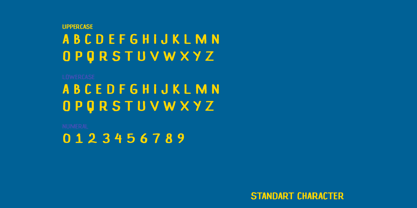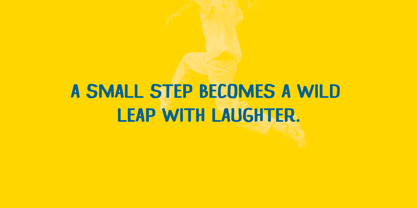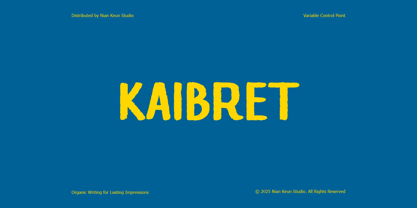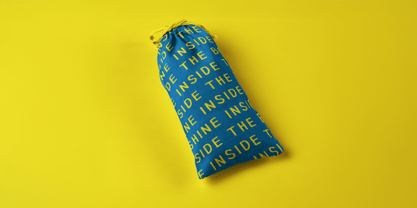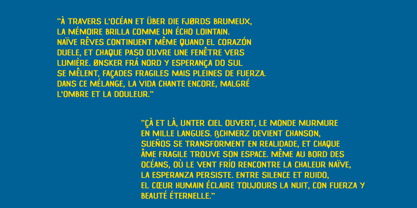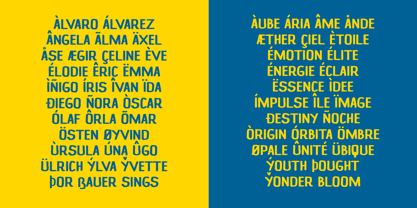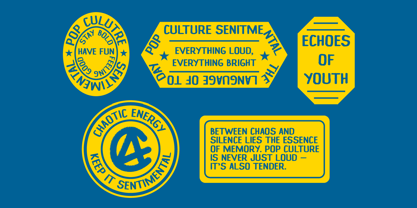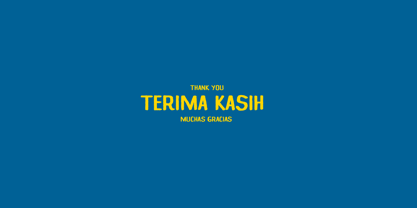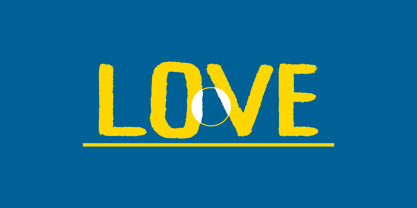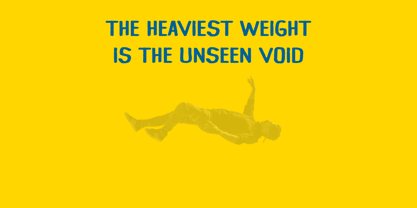
Kaibret
by Nian Keun Studio
The Kaibret Font Family was designed by Mugi Raharjo and published by Nian Keun Studio. Kaibret contains 1 styles.
Kaibret is a handcrafted display font that radiates friendliness and charm. Its bold strokes and natural imperfections bring a casual, approachable vibe to any design. Whether you’re designing playful packaging, event posters, or social media content, Kaibret adds a touch of authentic human warmth that makes your message memorable.
Why Choose KAIBRET?
- Adds bold personality to any project
- Perfect balance between handmade charm and readability
- Works beautifully for branding that needs warmth and impact
- Turns ordinary text into lasting impressions
Perfect For
- Food & beverage packaging
- Children’s books and playful titles
- Lifestyle brands & creative campaigns
- Posters, flyers & event promotions
- Social media graphics that stand out